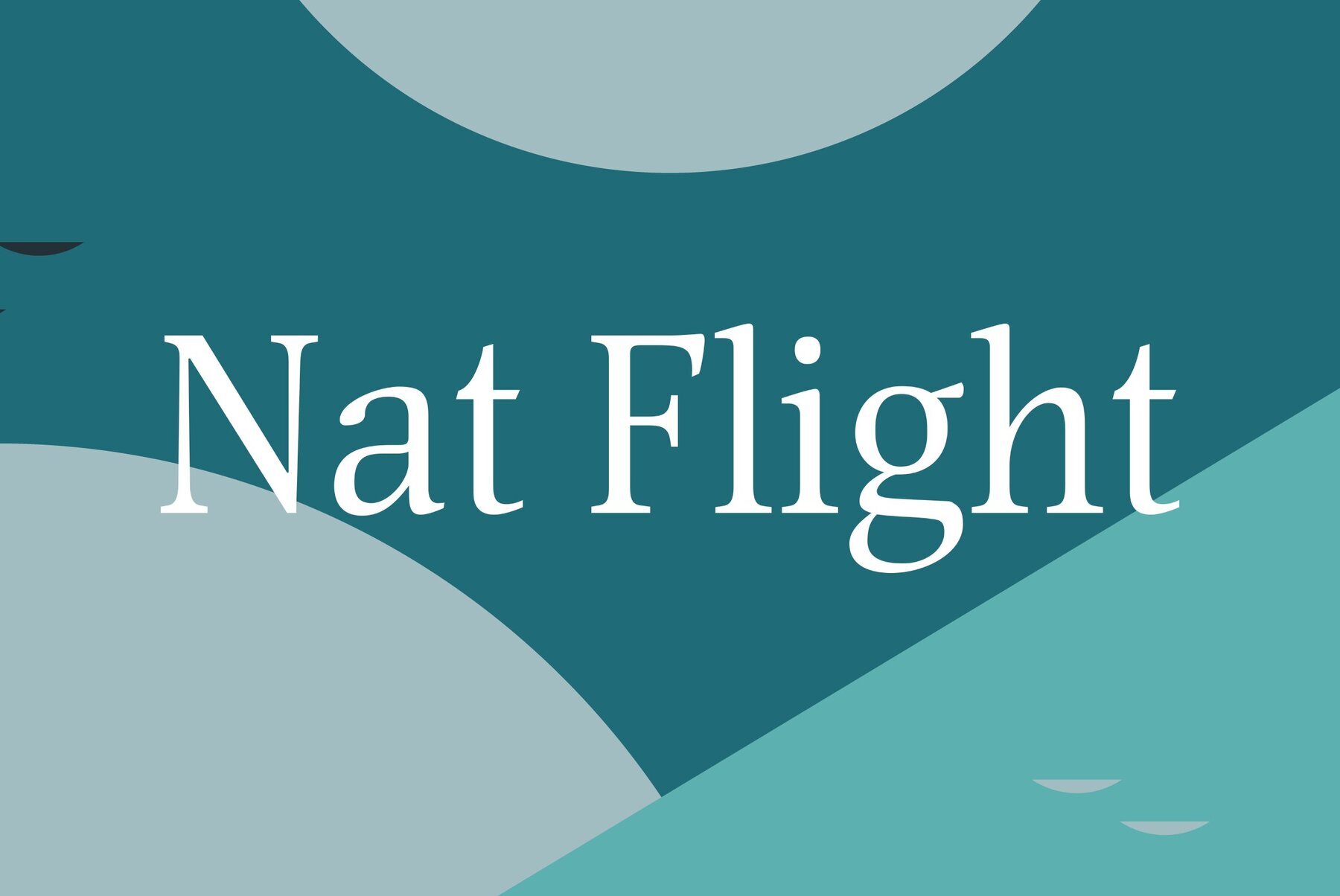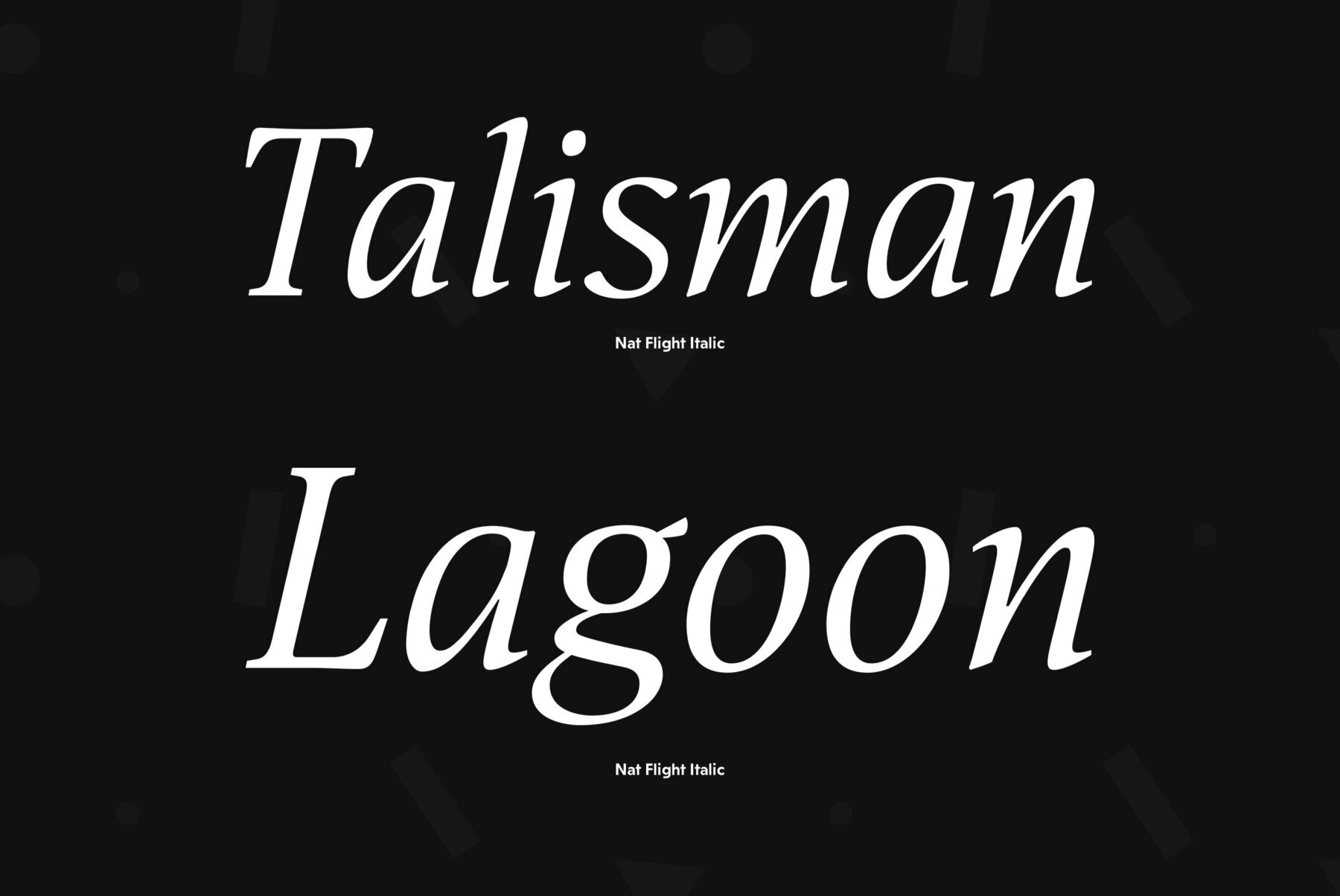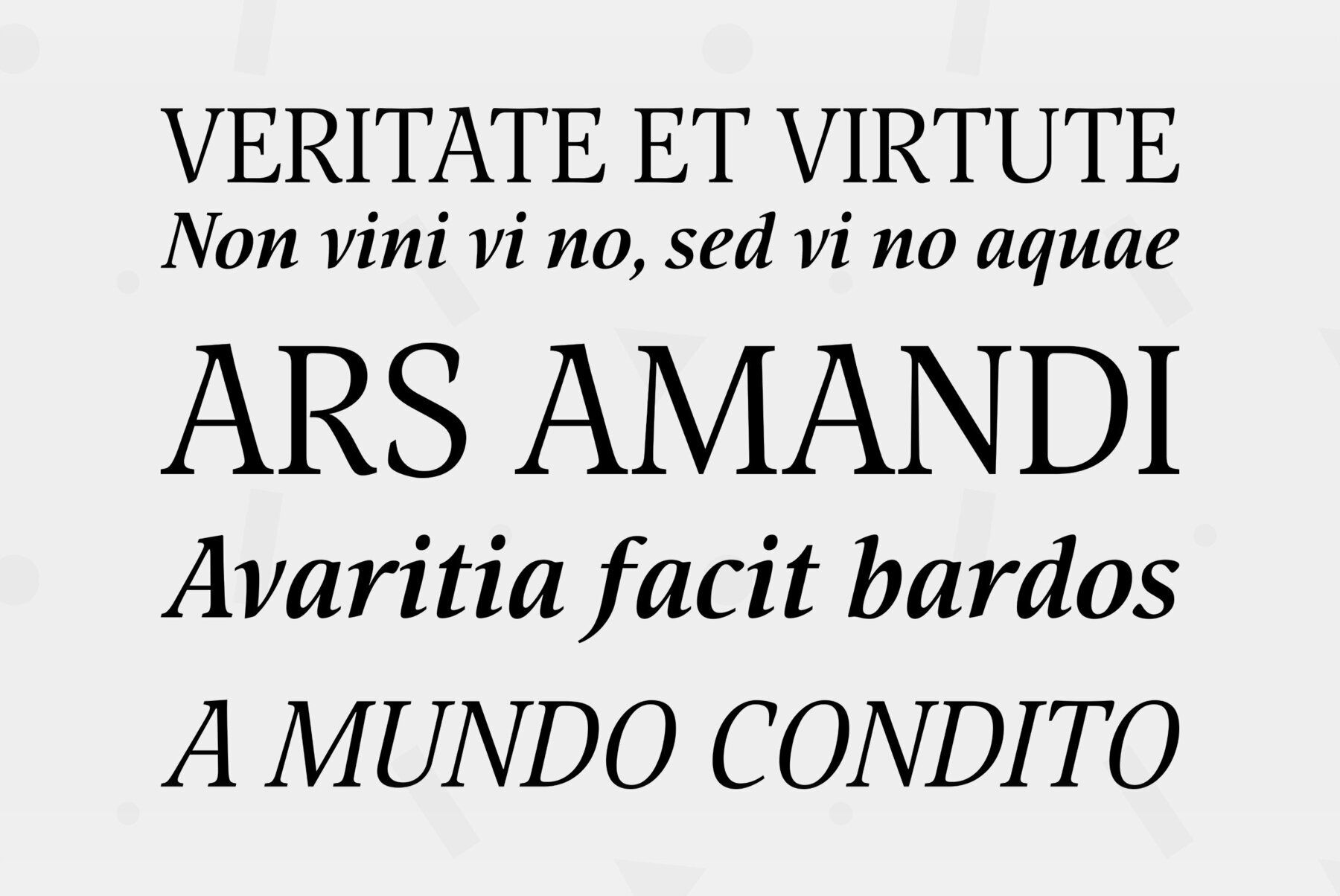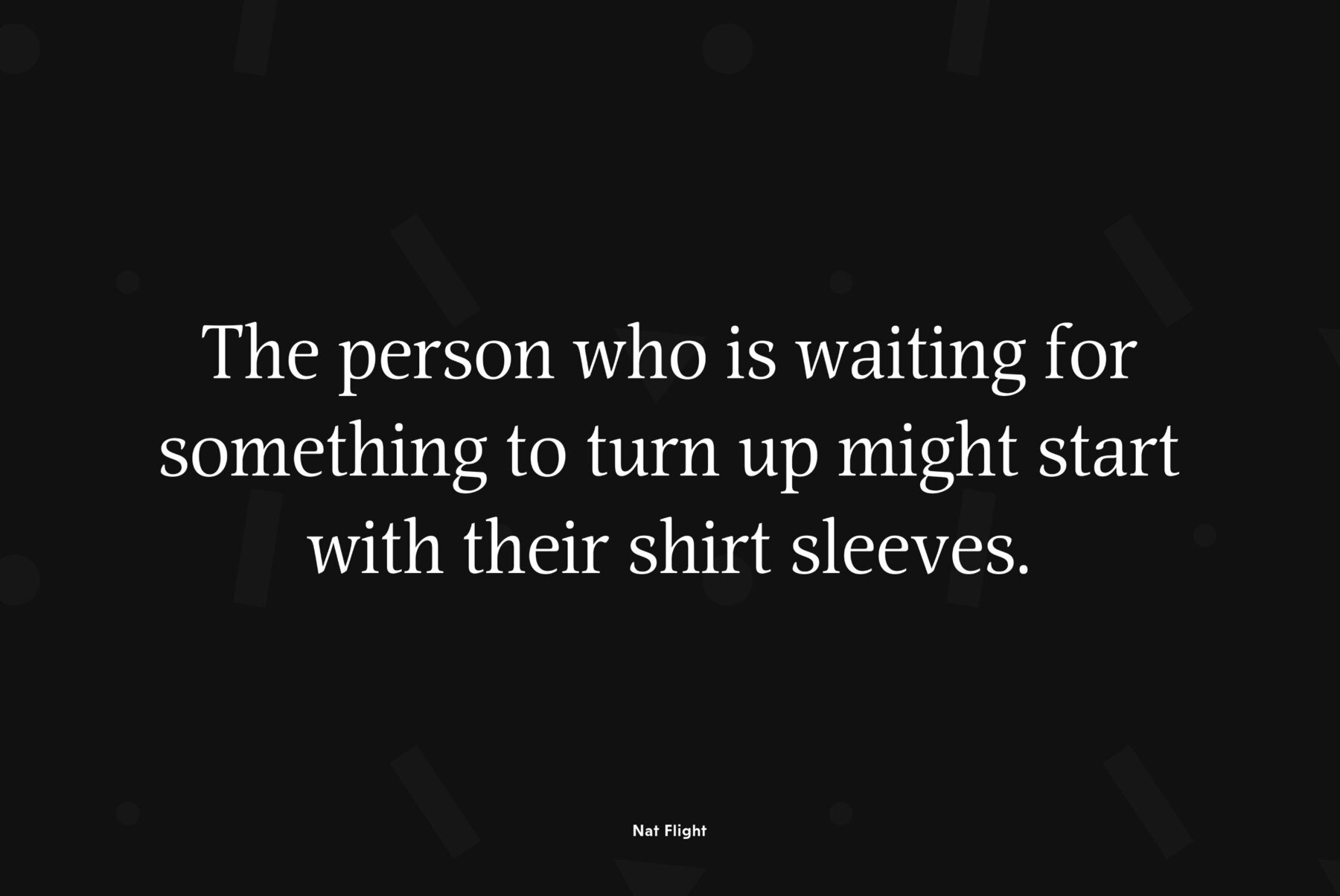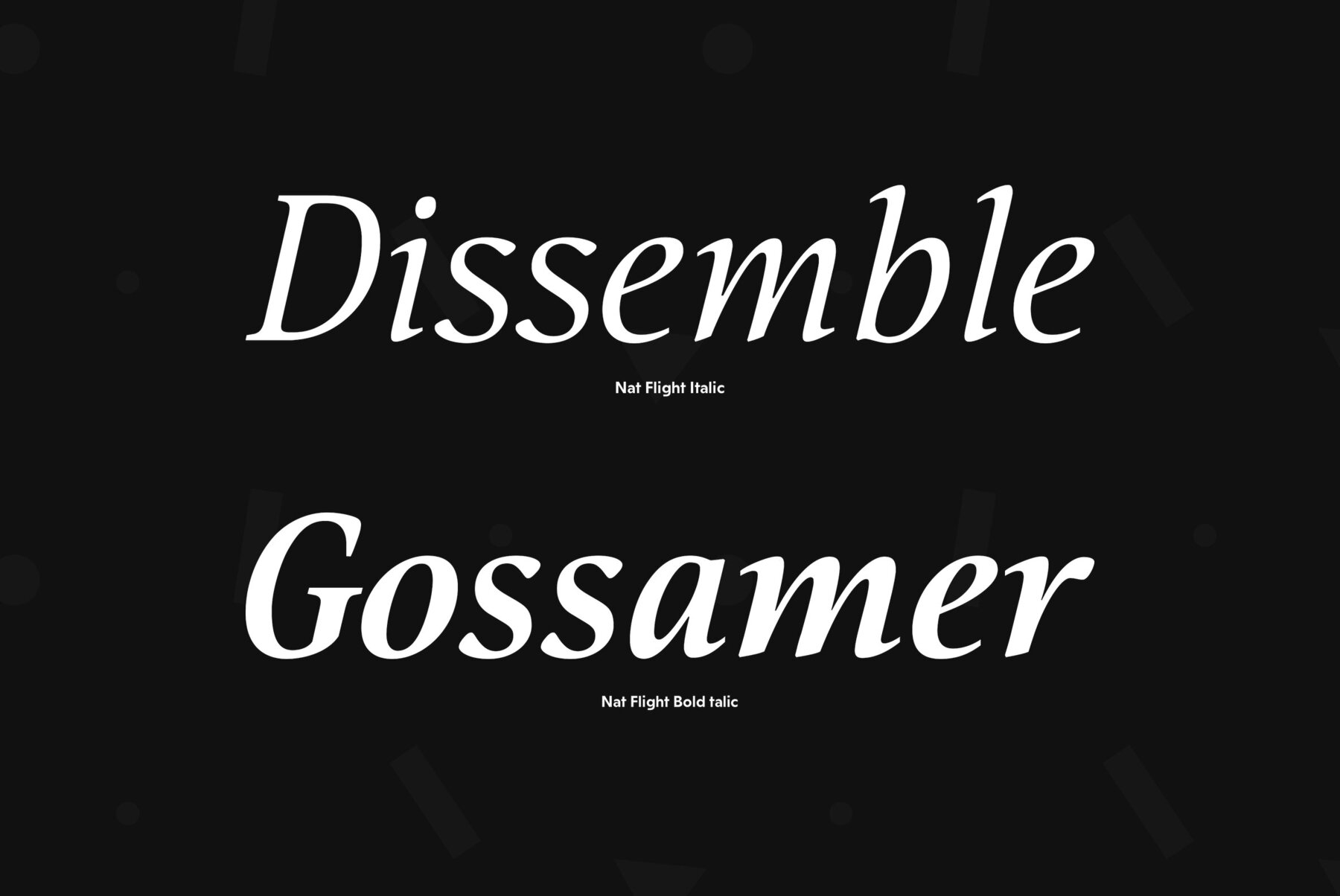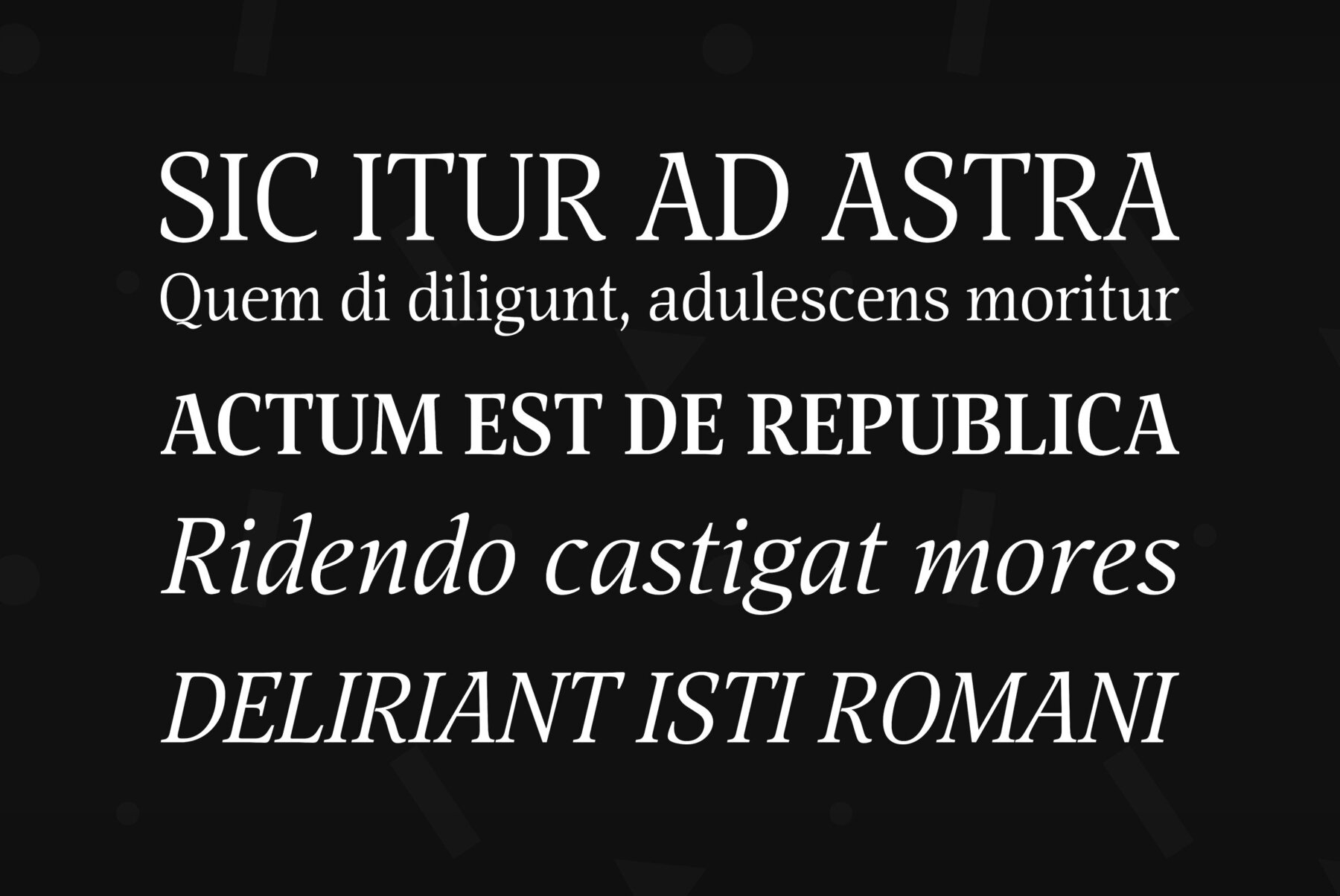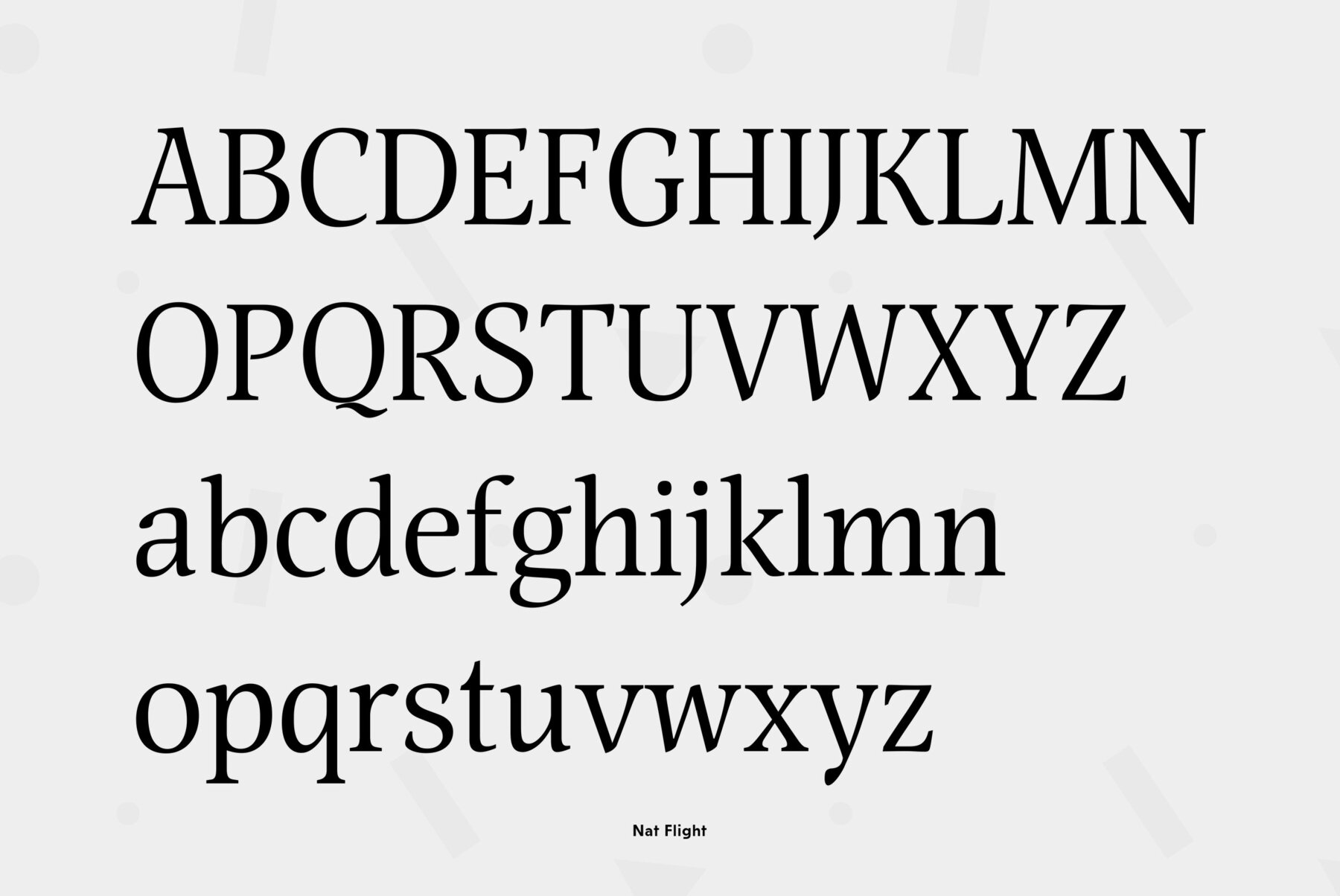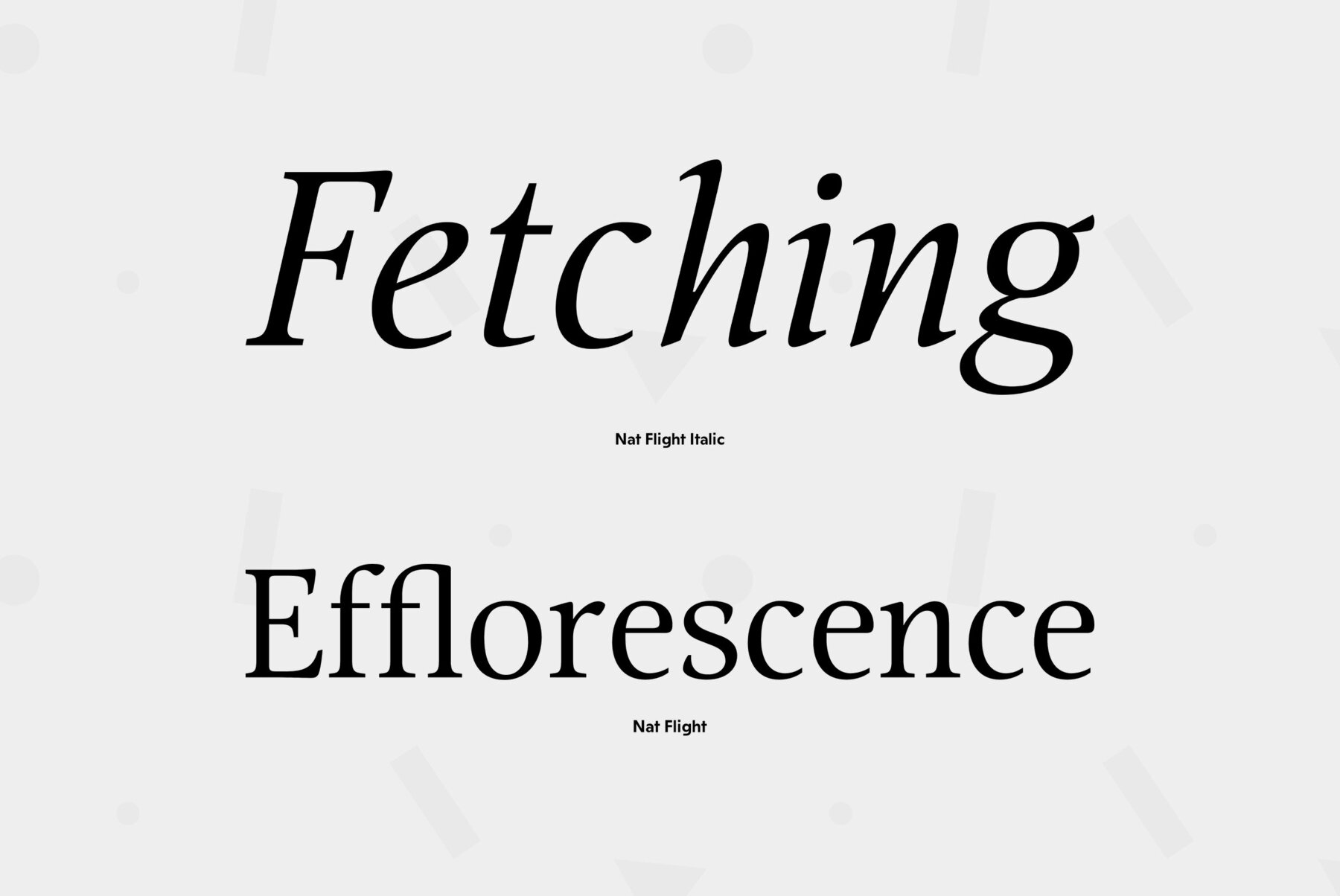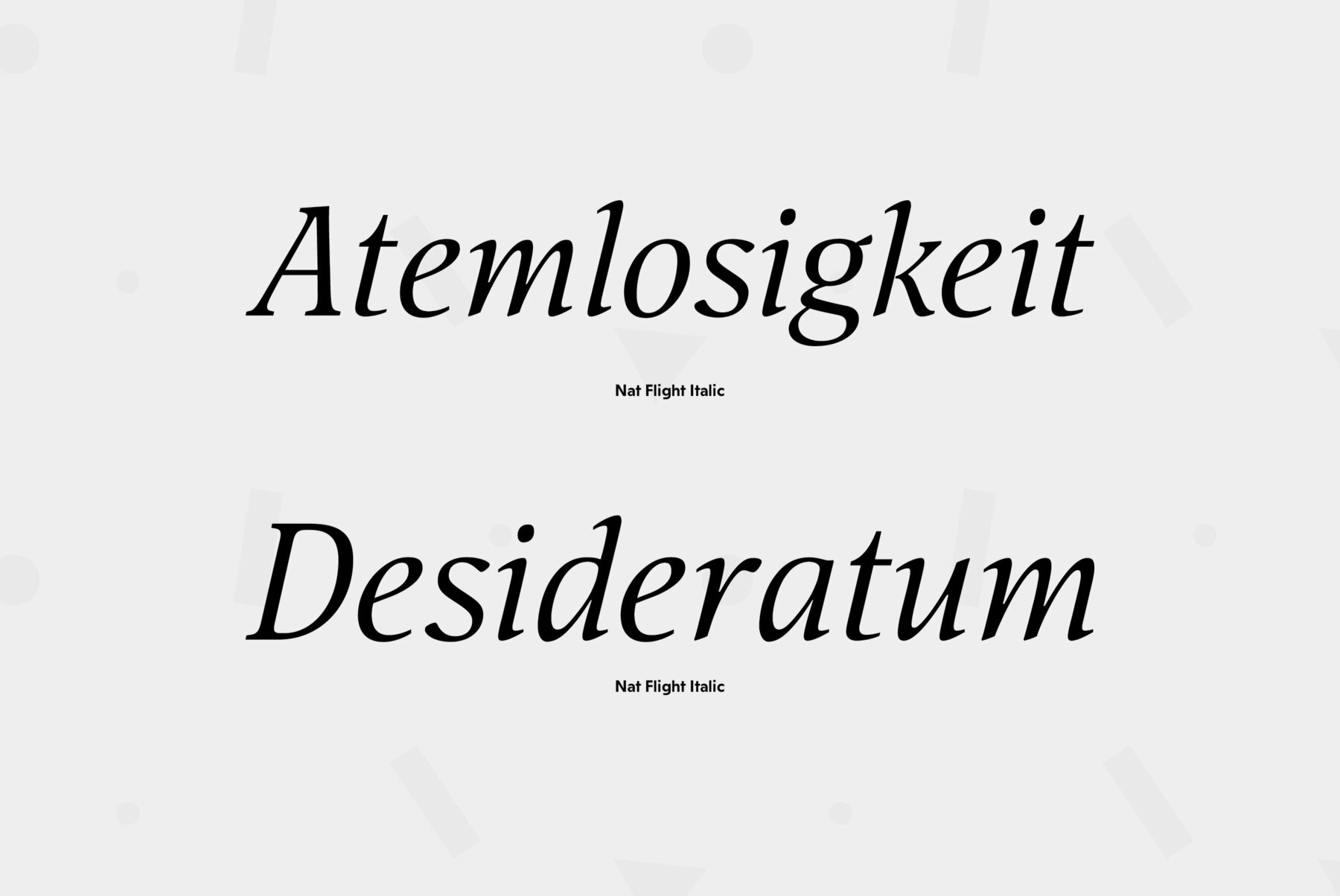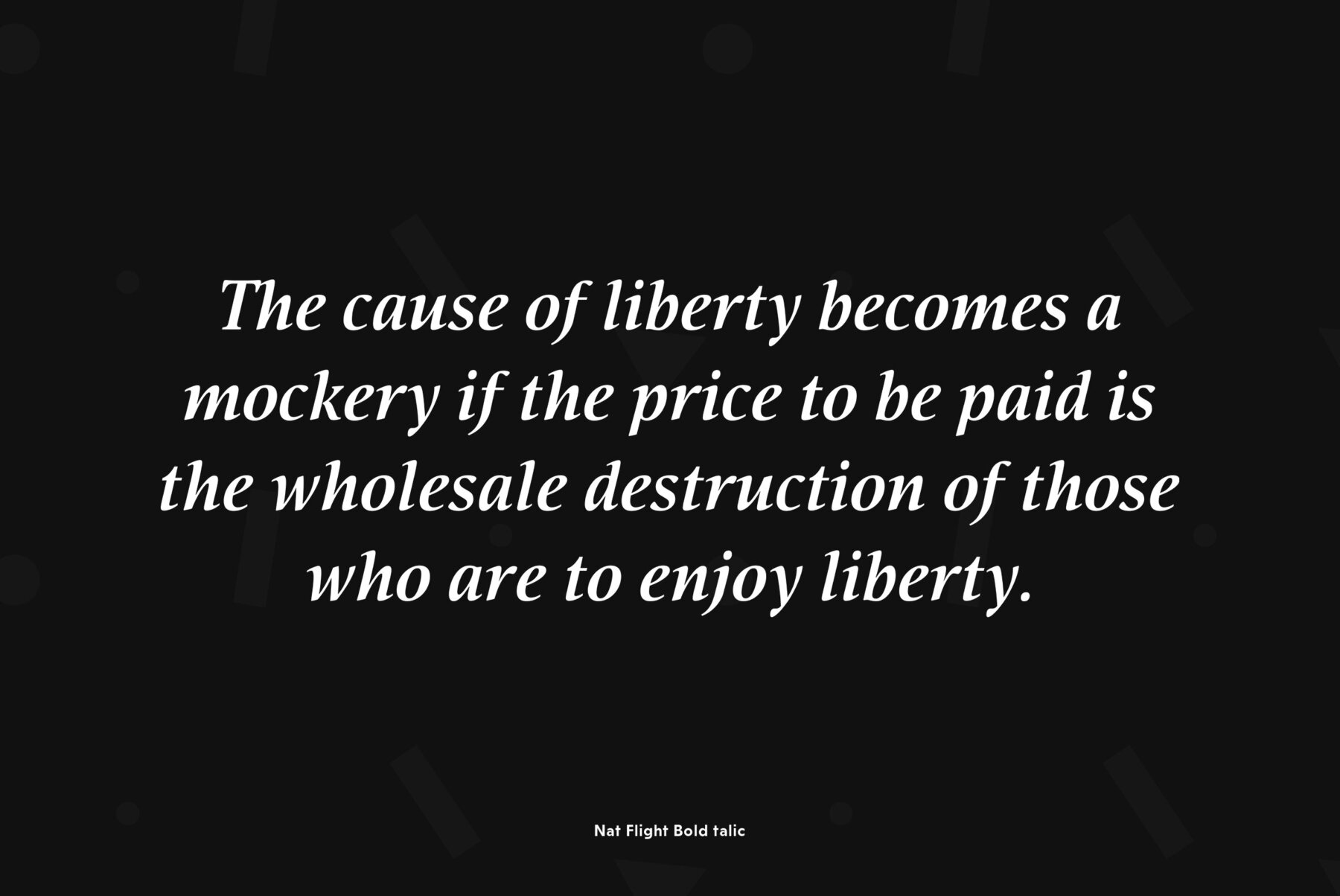
Nat Flight
Elegant text and display type family of narrow proportions with distinguishing detail — open junctions in the places where ovals come to vertical stems in B, P, R. The design has noticeable influence of calligraphy and demonstrate dynamic and delicate nature, especially in italics. The fonts are very nice in large point sizes where details of the design are more visible. Designer Natalia Vasilyeva.Released by ParaType in 2009.